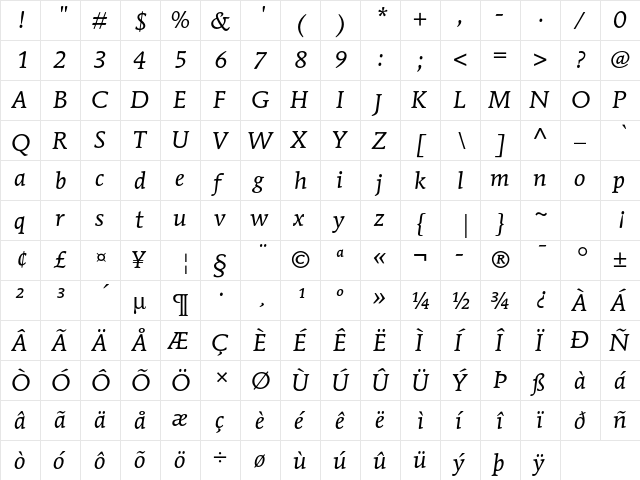
ITC Mendoza Roman Std Book Italic
| Designer | JosΠMendoza y Almeida |
Design Context for ITC Mendoza Roman Std Typeface
ITC Mendoza Roman Std is a composed and adaptable typeface that performs quietly and consistently across a wide range of design contexts. The dynamic lean of this cut emphasises speed and emphasis in any layout.
Pro Tip: Try ITC Mendoza Roman Std for annotation and caption copy alongside an upright companion — the contrast in angle creates a dynamic but ordered typographic system.